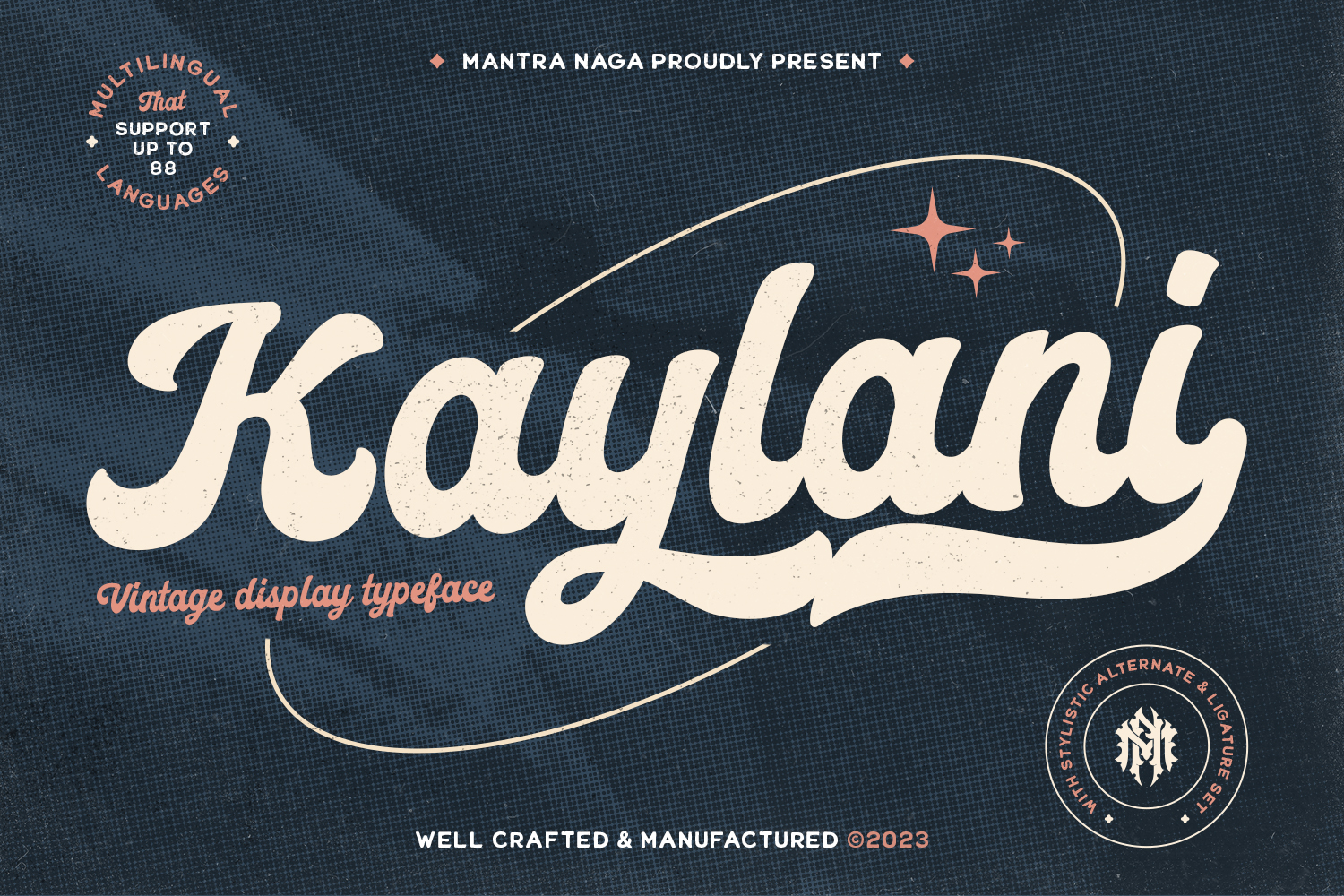
Kaylani Font
Designed by Mantra Naga Studio
About Kaylani
Kaylani font features the boldness of a bold script style enriched by a deep inspiration from a retro vintage aesthetic. With 432 glyphs, this font not only conveys a powerful message through each letter, but also conveys an old-school feel of elegance. OpenType features that include alternative characters and ligatures make each design composition full of character and flexibility of expression. Support for 88 international languages makes Kaylani more than just a font – it is a global communication tool that combines timeless vintage charm with dynamic modern needs.